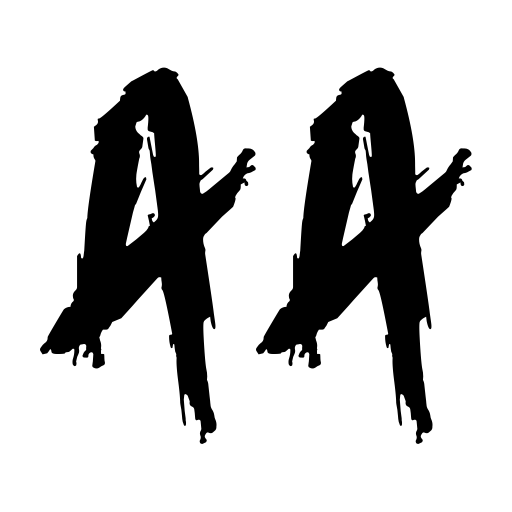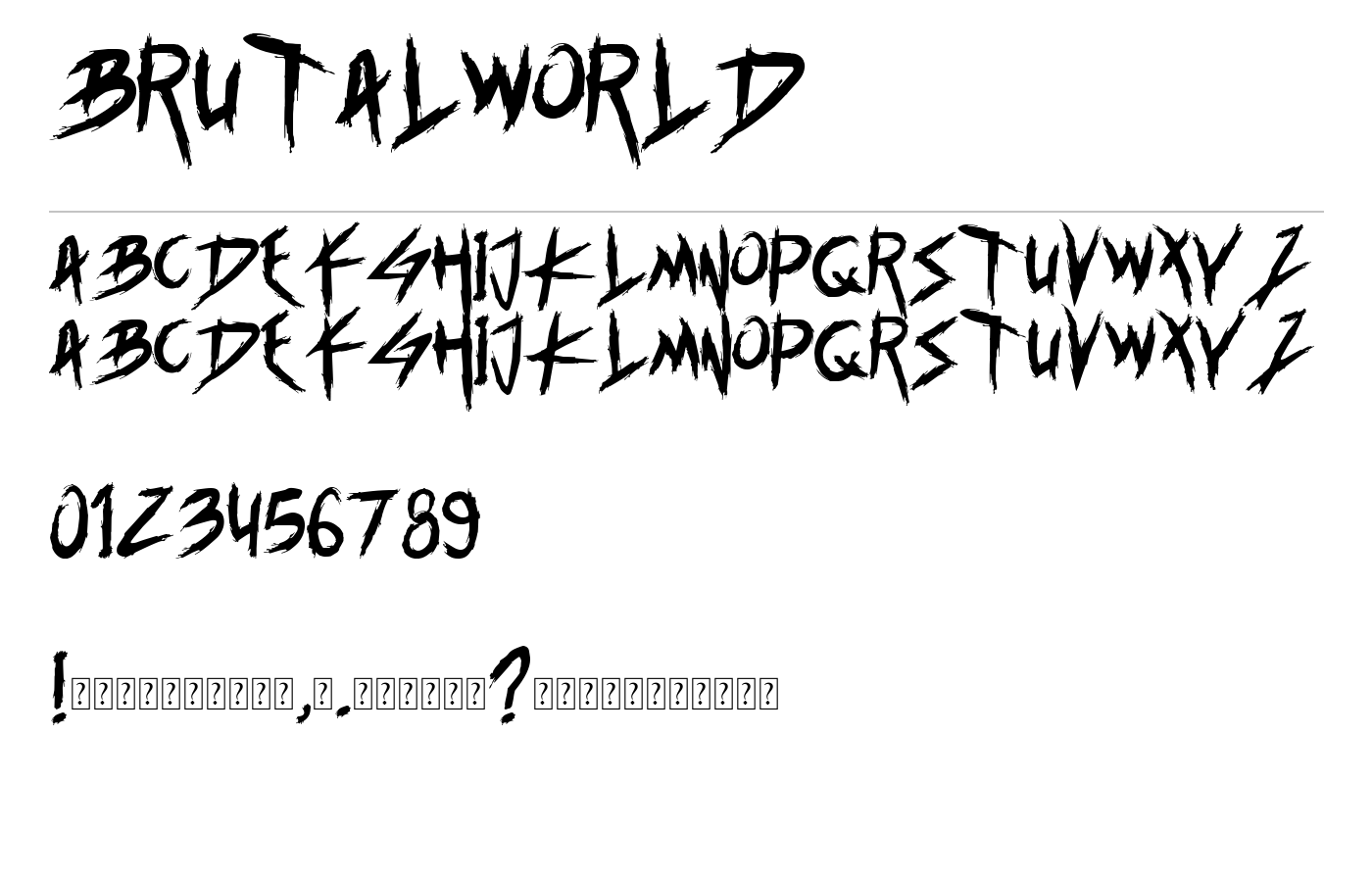
Brutalworld is a bold, distressed display font with sharp, rough edges that evoke a raw, edgy aesthetic. Its irregular, hand-brushed letterforms give it a rebellious and dynamic feel, making it ideal for creative projects seeking an intense, urban vibe. This font works best for striking headlines, posters, and branding that demands attention and attitude.
Brutalworld Font
About Brutalworld Font
| Font family | Brutalworld Font |
| Designer | Doli Anggia Harahap |